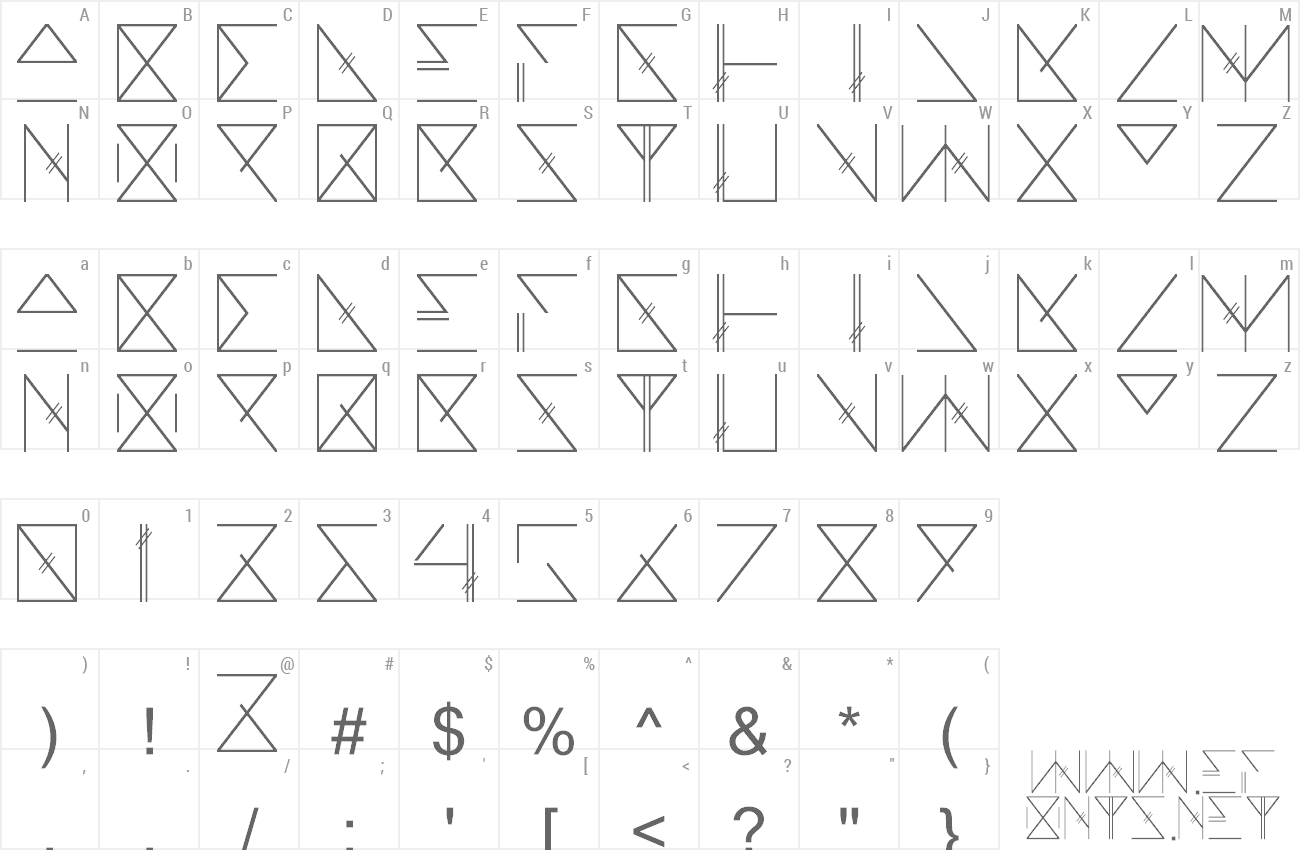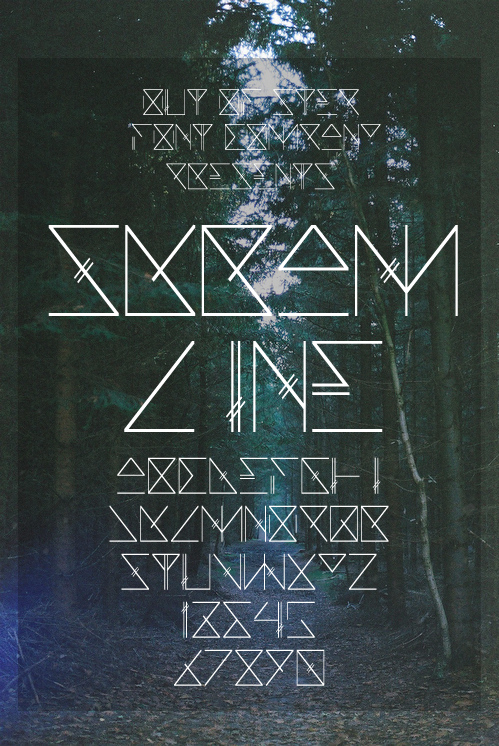
| Font name: | Skramline |
| Author: | Out of Step Font Company |
| Note by Out of Step Font Company | |
| Well, we never said we weren't out to blow minds. Right here what we have is mad hipster skramz geometric thinline. Get into it. |